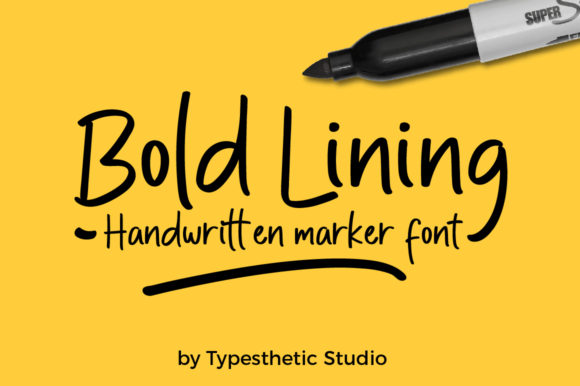
The Power of Bold Lining Font: Unlocking Creative Possibilities
I’ll never forget the time I was working on a branding project for a new coffee shop. My client wanted a font that was both modern and rustic, with a dash of personality. I scoured the internet, tried out dozens of fonts, but nothing seemed quite right. That was until I stumbled upon Bold Lining Font. Its unique, handwritten style instantly captured the essence of the brand, and I knew I’d found the perfect fit. In this article, I’ll share my experience with Bold Lining Font, its features, and how to make the most of it in your designs.
An Honest Review of Bold Lining Font
- ✨ Simple and neat lettered handwritten font that’s easy to read
- ✅ Natural and unique style that fits a wide range of designs
- ✅ Highly versatile, making it perfect for various creative projects
While Bold Lining Font is an excellent choice, there are a few things to keep in mind:
- ⚠️ Limited availability of stylistic alternates, which might limit its use in certain designs
- 🤔 Some users might find the font a bit too plain, lacking decorative elements
The Story Behind Bold Lining Font
Bold Lining Font was created with the intention of providing a simple, yet unique font for designers and creatives. Its natural and effortless style makes it perfect for a wide range of projects, from branding and advertising to crafting and DIY designs. The font’s creator aimed to craft a font that would inspire creativity and bring a personal touch to designs.
| Font Name | Bold Lining Font |
| Author | Typesthetic Studio |
Q: What type of designs is Bold Lining Font best suited for?
A: Bold Lining Font is incredibly versatile and can be used for various designs, including branding, advertising, crafting, and DIY projects.
Q: Is Bold Lining Font suitable for body text?
A: While Bold Lining Font is easy to read, it’s best suited for headings and titles. For body text, consider using a more traditional font.